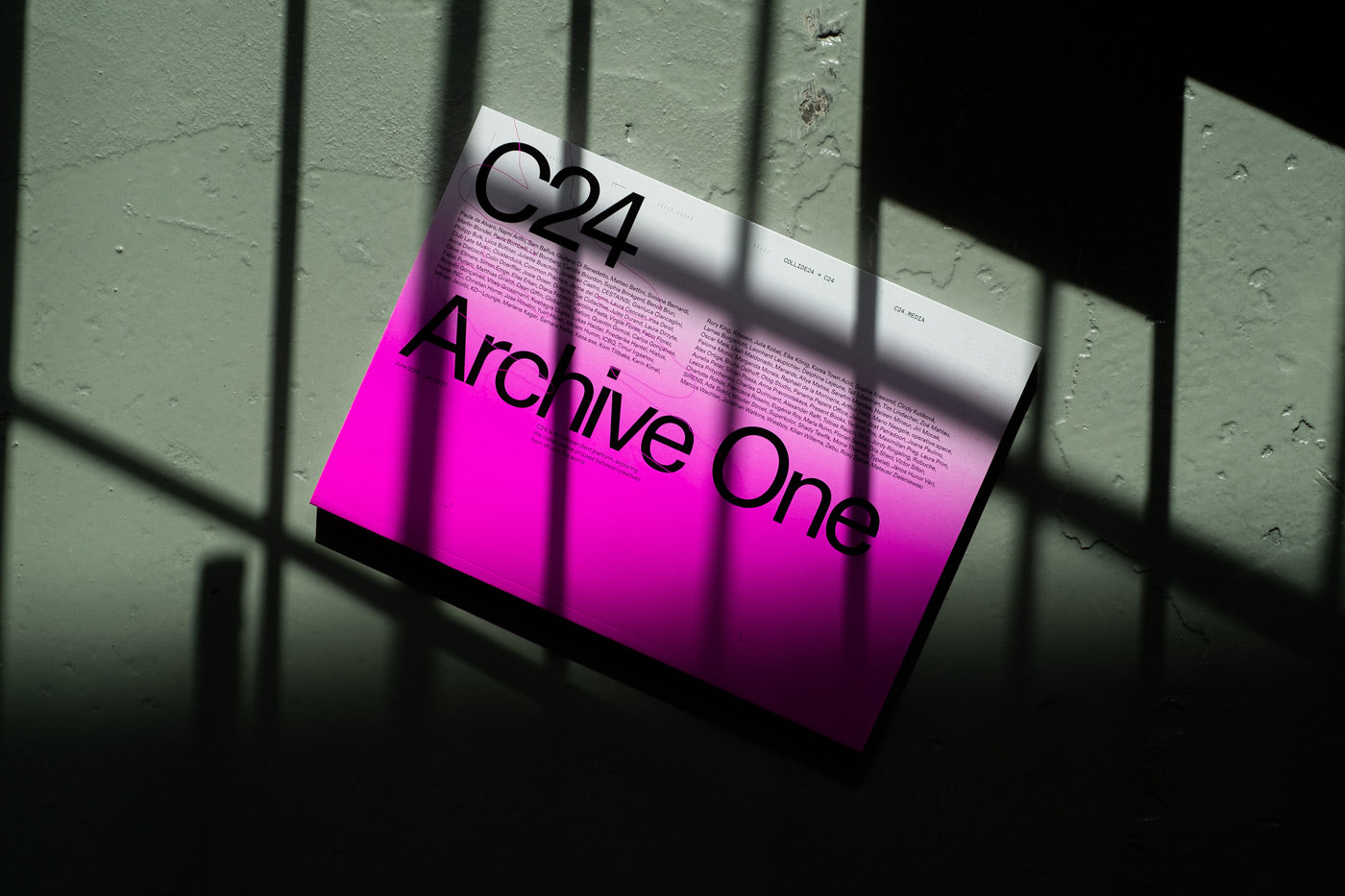
An editorial platform celebrating collaboration, a striking design practice pushing graphic expectation, Berlin-based dynamic duo Lena Manger and Kevin Moll are many things, with each endeavour as insightful, energising and forward-thinking as the last.
Lena and Kevin’s thoughtful endeavours have already been blossoming, with their platform Collide24 (C24) taking the design world by storm. Having founded C24 whilst still studying, the pair sought to showcase the significance of collaboration, and have since interviewed a remarkable range of contemporary, progressive and ground-breaking creatives – ranging from typographic magazines to CGI explorations of the human form.
Alongside this, Lena and Kevin have their own individual and collective practices, the latter recently made official under their new studio, softcover. Both parties explore a tentative line between the past and the present, marking an exciting new distinction of design, art, discussion and creation. Perhaps above all, however, what Lena and Kevin typify is the future of design, the future of collaborative working, and the future of artistic alliance. A practice and partnership that is unafraid to have an emotive, questioning foundation, and is all the stronger for it.
You’ve worked together on a tremendous amount of projects, how did your working relationship start?
It all started when we both met in Mannheim at the Captcha Design Festival, where we participated in a super interesting workshop with the amazing Jonathan Castro. A few months after that, we both decided to move to Berlin, interning and freelancing at different places. As we have many overlapping interests, we started to collaborate on personal projects together, which led us to founding the platform C24 as a way to channel our ideas and visions. This year, we finally founded our own studio, softcover, and share a space together with our friend Florian from Present Books.
Why do you work so well together?
Above all, we share a mutual respect towards each other. Compromises and good communication are an important part of any relationship—work-wise or not—and can lead to better results in the long run. Looking back, we learnt a lot from each other, oftentimes from our disagreements. As we had both worked by ourselves for quite some time before we met, we now appreciate having someone around that shares the same interests and dreams, and always has your back.
C24 is an absolutely fascinating platform, did your collaboration inspire its creation? What motivated you to start it?
C24 was actually the first collaboration we have ever worked on. One day, we were sitting in the living room of my first apartment in Schöneberg (Berlin), which I shared with some friends at that time, and shared some conversations about our experiences with collaborations during our studies. At university, group projects often felt forced or competitive, but there were also those rare, but really fruitful ones, that allowed us to grow. Although collaboration is such an essential part of the creative industry, we felt like neither our educational system nor common design platforms put enough emphasis on this very intimate process behind collaborations. With C24, we wanted to create a platform that explores and highlights the collaborative practice of artists working across a wide range of media to discuss their diverse backgrounds and the meaning of collaboration to their daily practice.
What have you learned since starting it? Was there anything you found surprising?
We learnt a lot! But if we would have to reduce it to one answer, it’s probably that ‘collaboration’ can mean something different to anyone. Creativity, in general, is such a subjective, personal process, that is not easy to define. Probably every piece of art has been touched by more than one person during the process of its creation. If you take a book, for example, there is not only the designer laying out the book, there are also the paper manufacturers, the bookbinders, the printers. All of them play an essential role in creating the final product.
As designers, we have to promote ourselves and our work all the time, so it was a really nice and fulfilling experience to take the backseat with this project and just listen to what other people have to say. It’s always really inspiring to hear more about their path into the design world, how they approach a new project or how they deal with conflicts. We really appreciate that so many people have taken the time to engage themselves in this project and allowed us to learn more about their practice.
Your latest C24 project ‘C24 Archive One’ is incredible, what was it like getting everything together, and what was the thought process behind its design?
To be honest, it was a lot of work for a two-person team, but now, having the physical copy in our hands, we couldn’t be more proud. We’ve always dreamt of a physical, printed counterpart to our digital platform, as we wanted to give more appreciation to every artist featured on C24.
For its design, we wanted to create a system, that would give room to the various presented artworks, while still maintaining our visual language. Therefore we choose a clean, but flexible typographic system. As collaboration often includes the collusion, overlapping or blending of different styles, disciplines, and backgrounds, we let some of the images collide horizontally, and also chose a very thin paper, so that the contents on the back of the pages would shine through and overlap with the contents on the front.
What’s on the horizon for you both?
Alongside some exciting projects this year and some major updates on the C24 website, we’re still trying to figure out how to run this freshly founded studio of ours! We’re excited to see where this journey will take us and hope to work with many more collaborators, partners, and friends in the future!